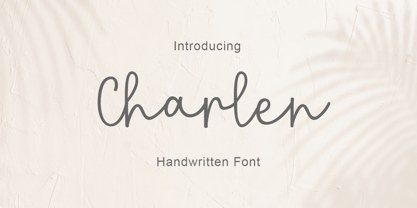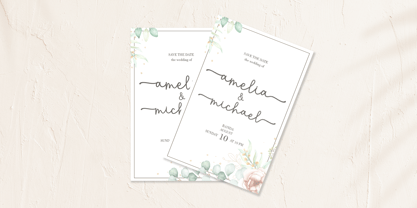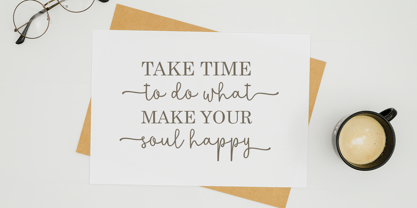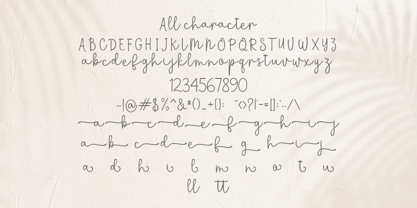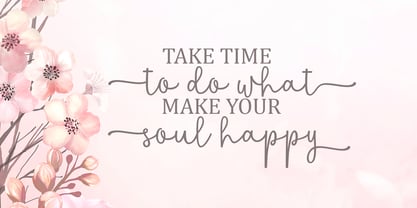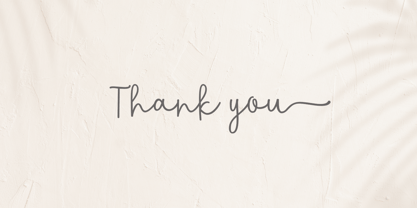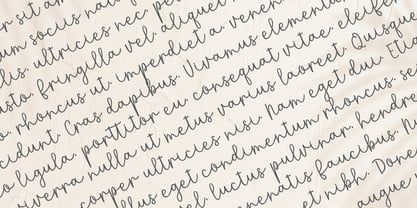
Charlen
by Amarlettering
The Charlen Font Family was designed by Amar Lettering and published by Amarlettering. Charlen contains 1 styles. More about this family
Chanda is a delicate and elegant script font that embodies modern beauty and timeless grace. With its thin, flowing strokes and gentle curves, this font creates a smooth and sophisticated impression in every letter. Perfect for wedding invitations, branding projects, logos, greeting cards, and editorial layouts, Chanda adds refined and feminine charm to any design. Its balanced contrast and graceful rhythm make it ideal for designers seeking elegance and versatility in one stylish typeface.
Designers: Amar Lettering
Foundry: Amarlettering